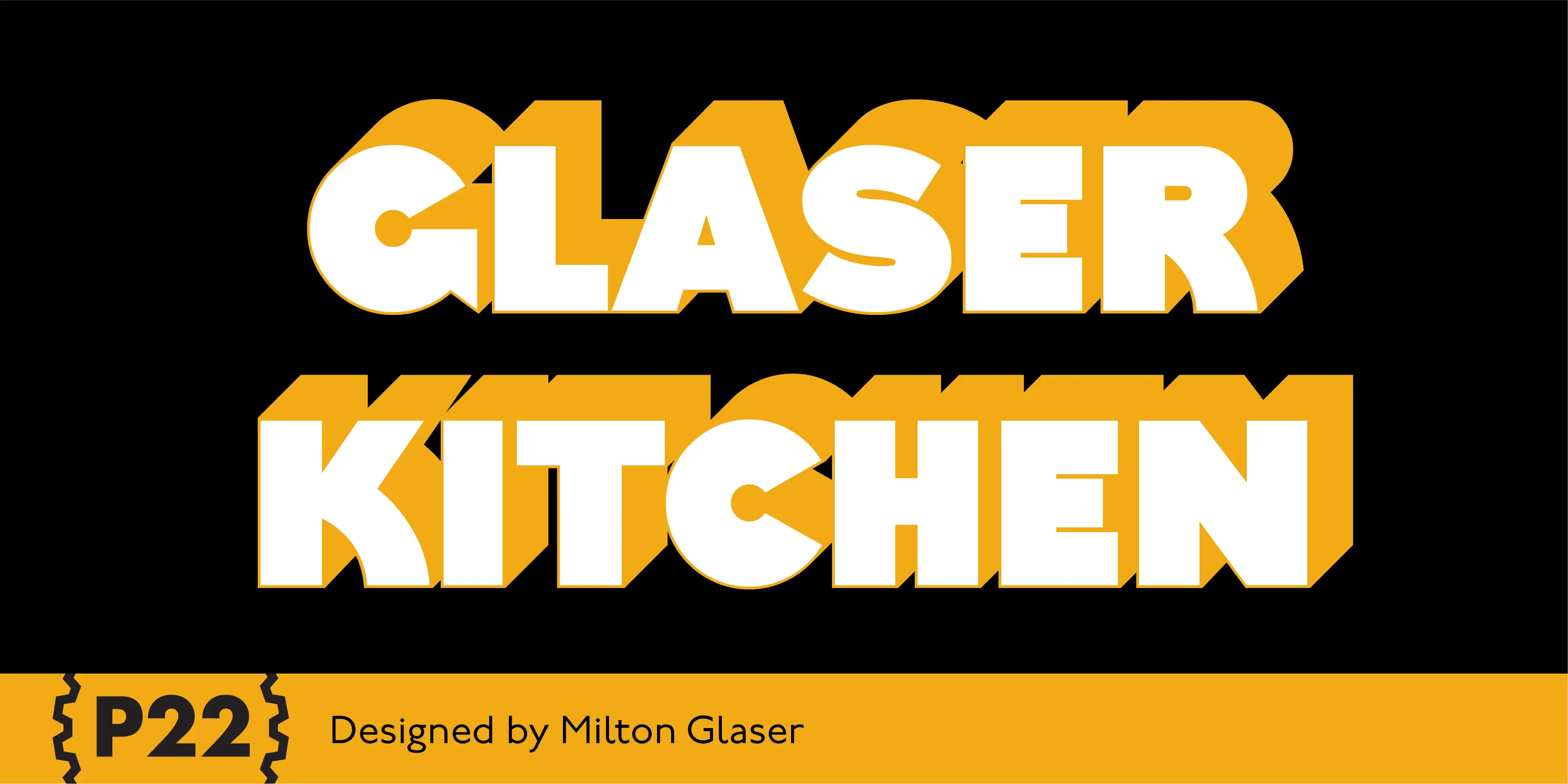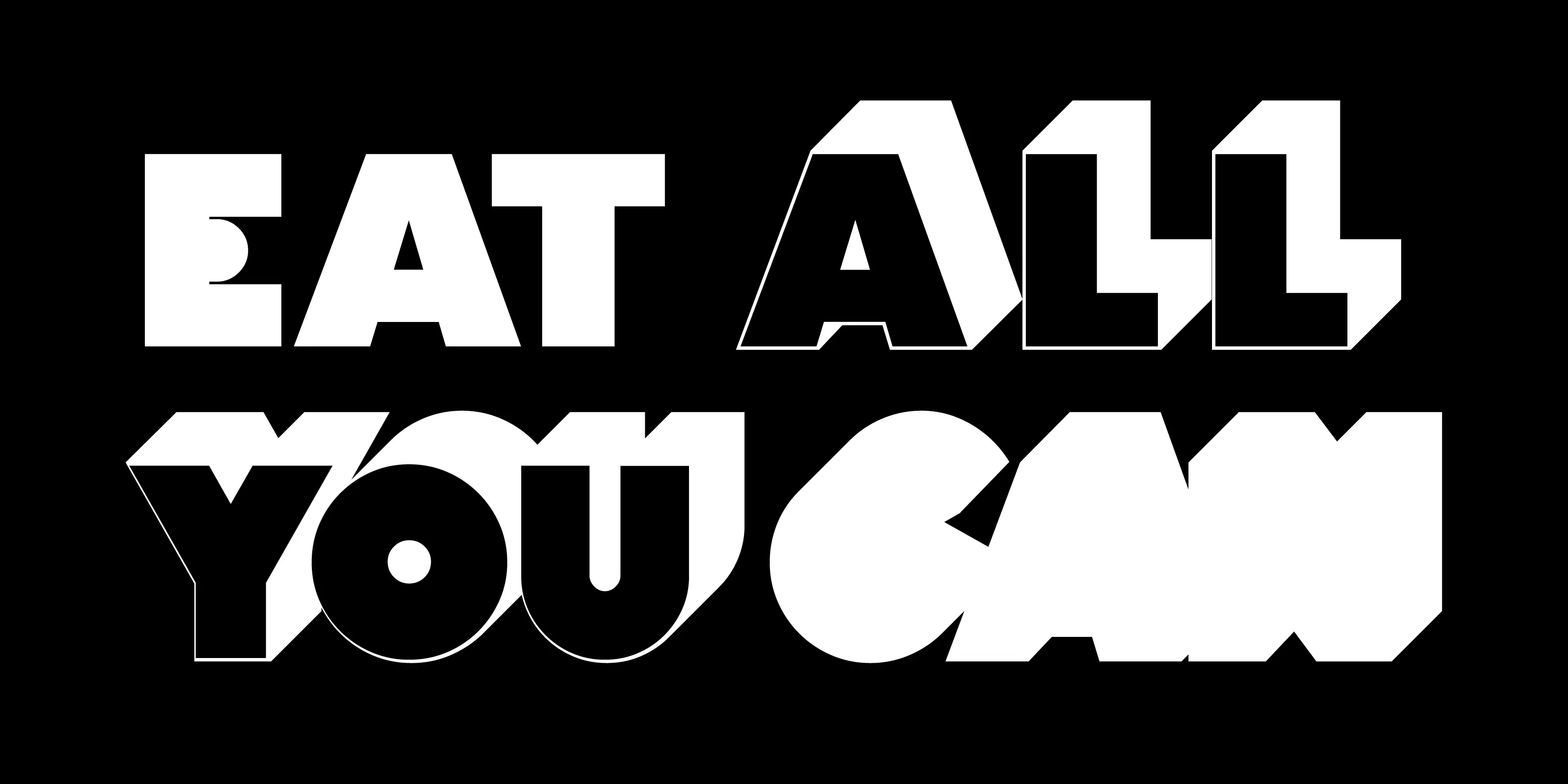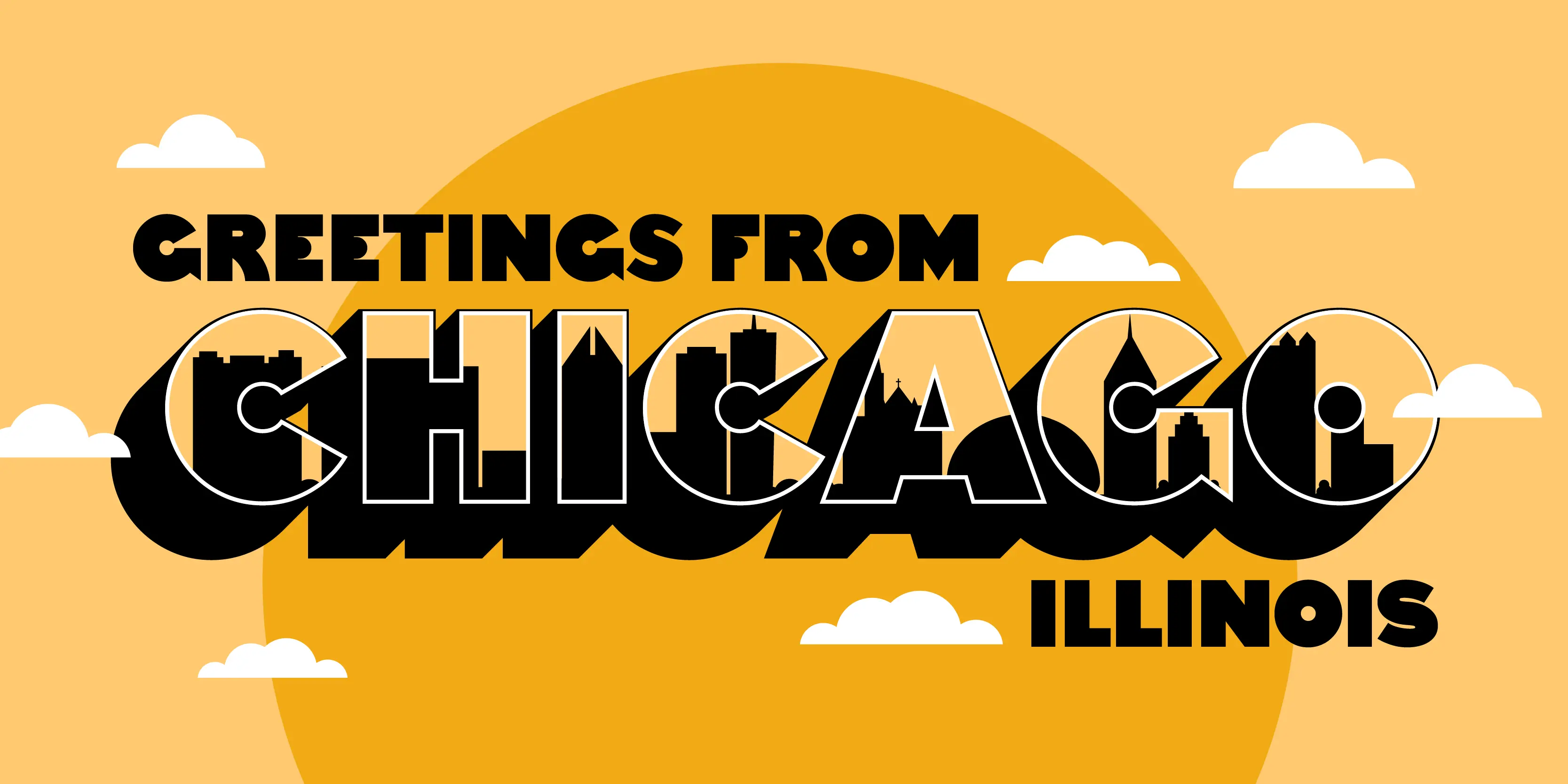
Glaser Kitchen Fonts
Glaser Kitchen Color
Glaser Kitchen 3D Fill
Glaser Kitchen 3D Shadow
Glaser Kitchen Regular
Glaser Kitchen
Milton Glaser’s Kitchen Typeface from the mid 1970s exemplifies the bold 3-D art deco revival genre that was a trademark of the Glaser style. This typeface resulted from his involvement in the design of the The Big Kitchen in the World Trade Center’s concourse in New York City. The new P22 Glaser Kitchen takes on the technical challenge of overlapping 3-D shadows by offering two styles. P22 Glaser Kitchen Regular is spaced out so that the shadows do not overlap the white spaces of the neighboring letters. Whereas the P22 Glaser Kitchen 3D Fill and 3D Shadow can be used layered on top of one another to achieve the tight spacing intended by Glaser. P22 Glaser Kitchen was based on original drawings and phototype proofs from the Milton Glaser Studios archives. Typographic punctuation and sorts were imagined by James Grieshaber to work with Glaser’s design, as well as diacritics to accommodate most European languages. Over the years there have been many typefaces that borrowed heavily from the Glaser designs, but these are the only official fonts approved by Milton Glaser Studio and the Estate of Milton Glaser.